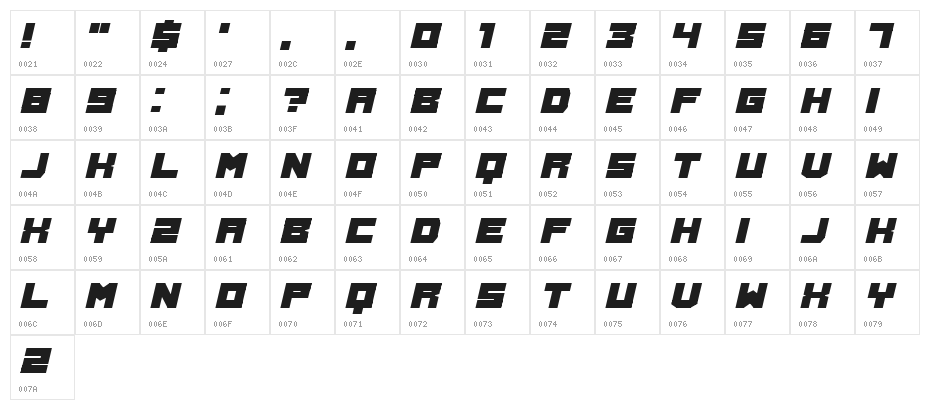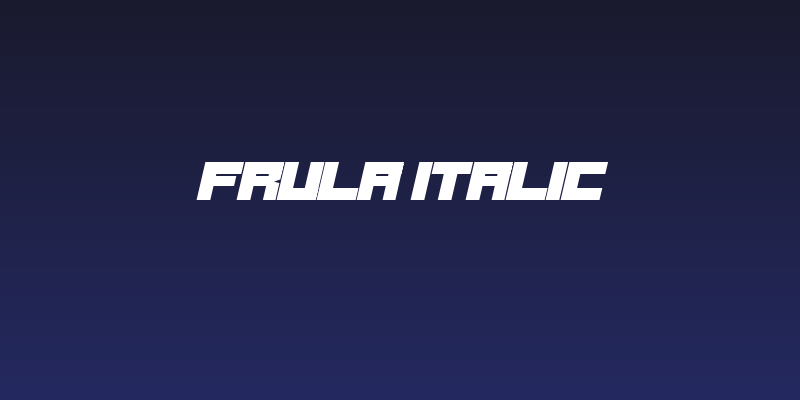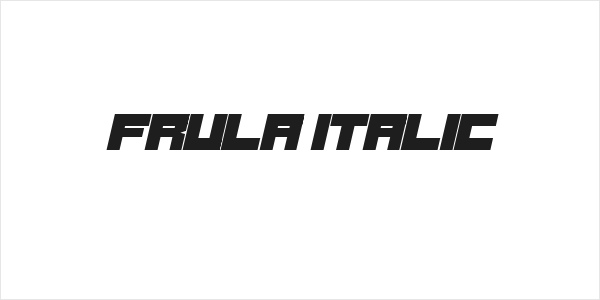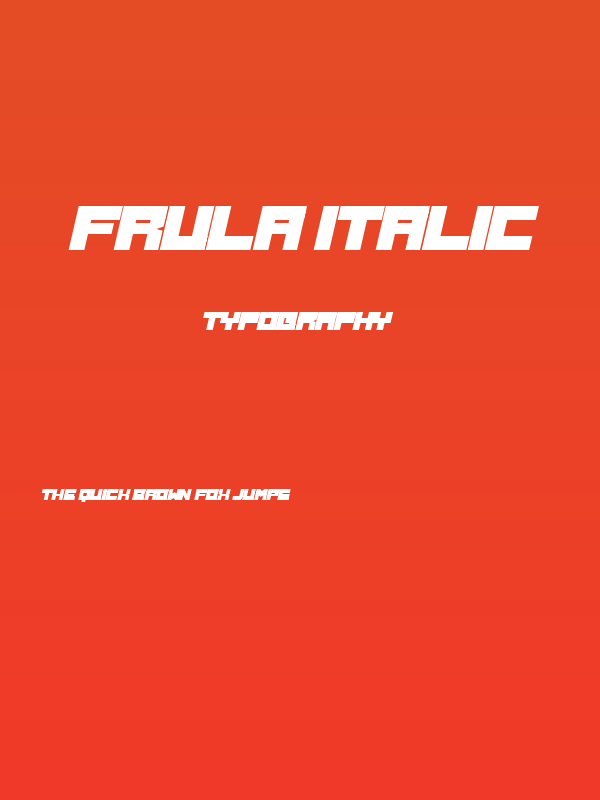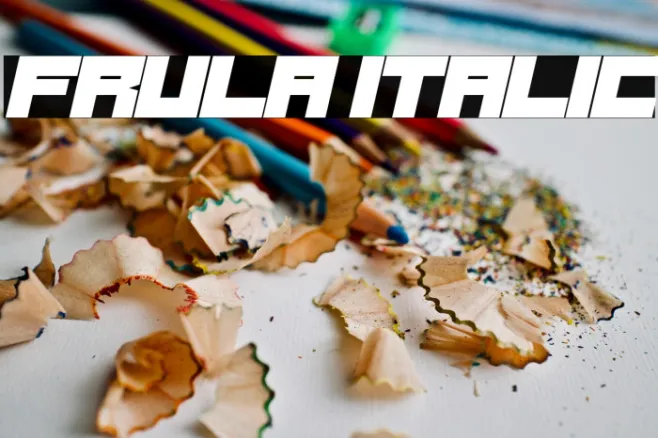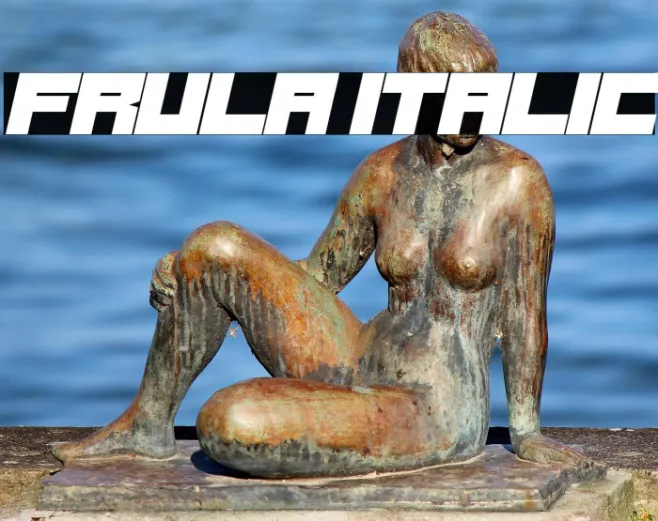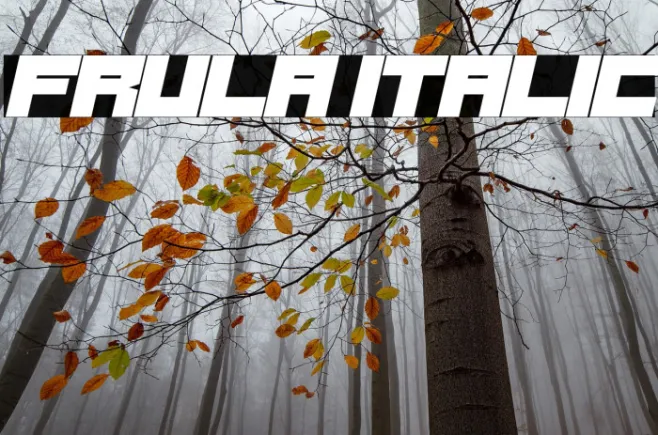
Frula Italic Font
Frula Italic Description
This font exhibits a bold, italicized style with a strong geometric influence. The characters are sharply angled, giving a sense of movement and dynamism. The uppercase letters are particularly striking, with a futuristic and edgy appearance. The lowercase letters maintain the same angular style, ensuring consistency across the typeface. Numbers and special characters are designed to match the boldness and angularity of the alphabet, making the font suitable for attention-grabbing designs. The overall impression is modern and assertive, ideal for projects that require a strong visual impact.
| Proposed Projects | Ideal for sports branding, tech logos, video game titles, and dynamic posters. |